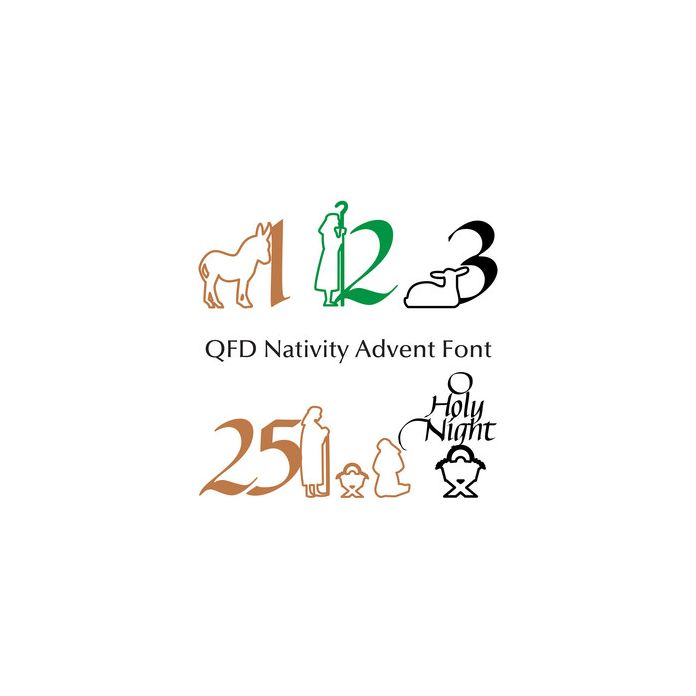
This font would be fabulous made into a colouring book!
Treat this font as if it was a dingbat font, for instance; A is 1, Y is 25 and Z is “O Holy Night”.